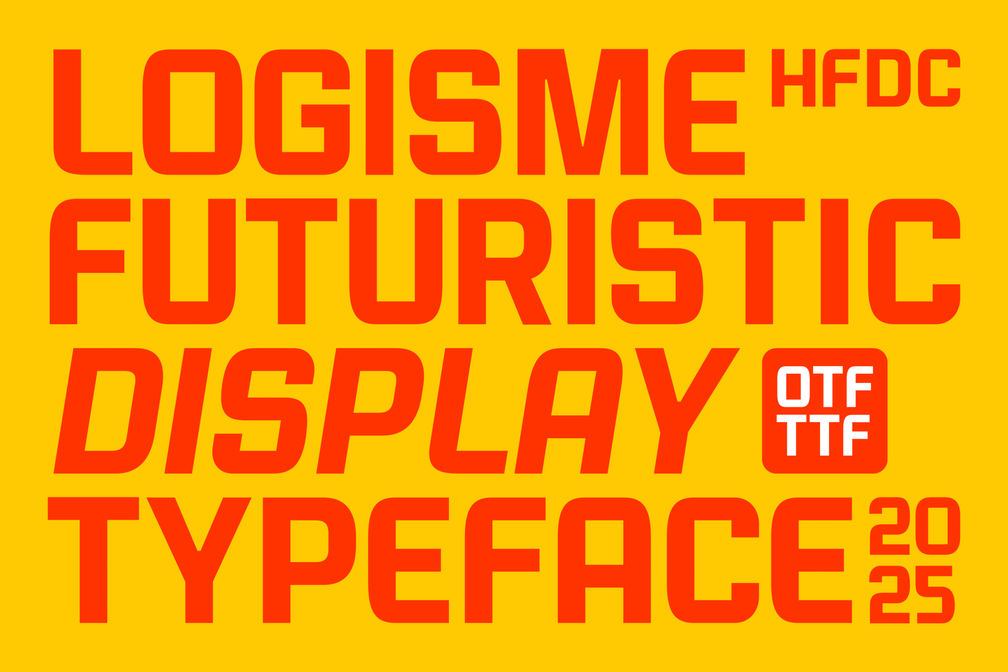
- Logisme Futuristic Typeface
Logisme Typeface: A Futuristic Display Font for Modern Designs
Introducing Logisme, a sleek and futuristic display font that combines sharp geometry with dynamic flair. Designed to make a bold statement, Logisme is perfect for headlines, posters, branding, and any project that demands a cutting-edge aesthetic.
- 4 Styles: Regular, Soft, Italic, Italic Soft
- Uppercase & Lowercase
- Punctuation
- Number
- Multilingual Support
Elevate your design with Logisme—where the future of typography begins.